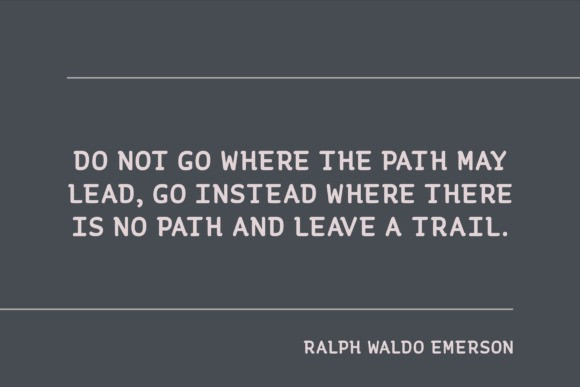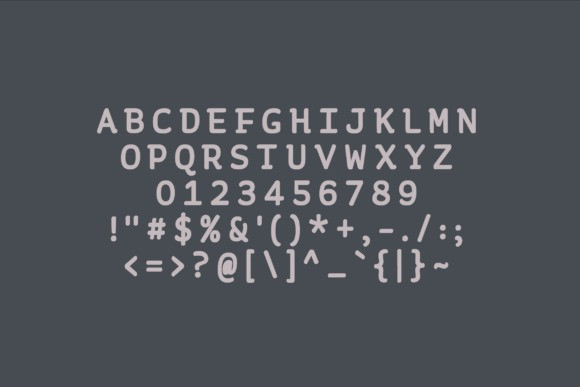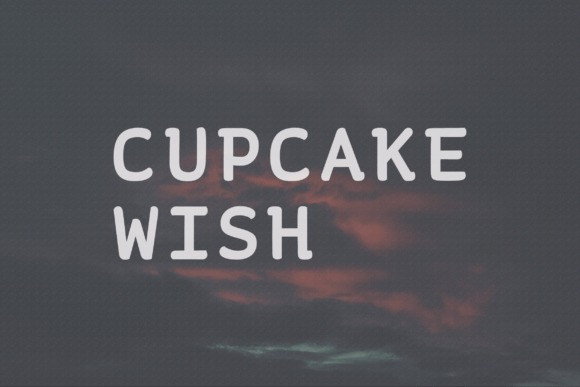
Cupcake Wish Font
Cupcake Wish Font, a modern, classy sans serif typeface. A sans serif typeface that contains upper characters, number 0-9 and a range of punctuation and symbols. An extremely versatile font, perfect for logos, weddings, invitations, quotes, advertisements, print, magazines, and more!